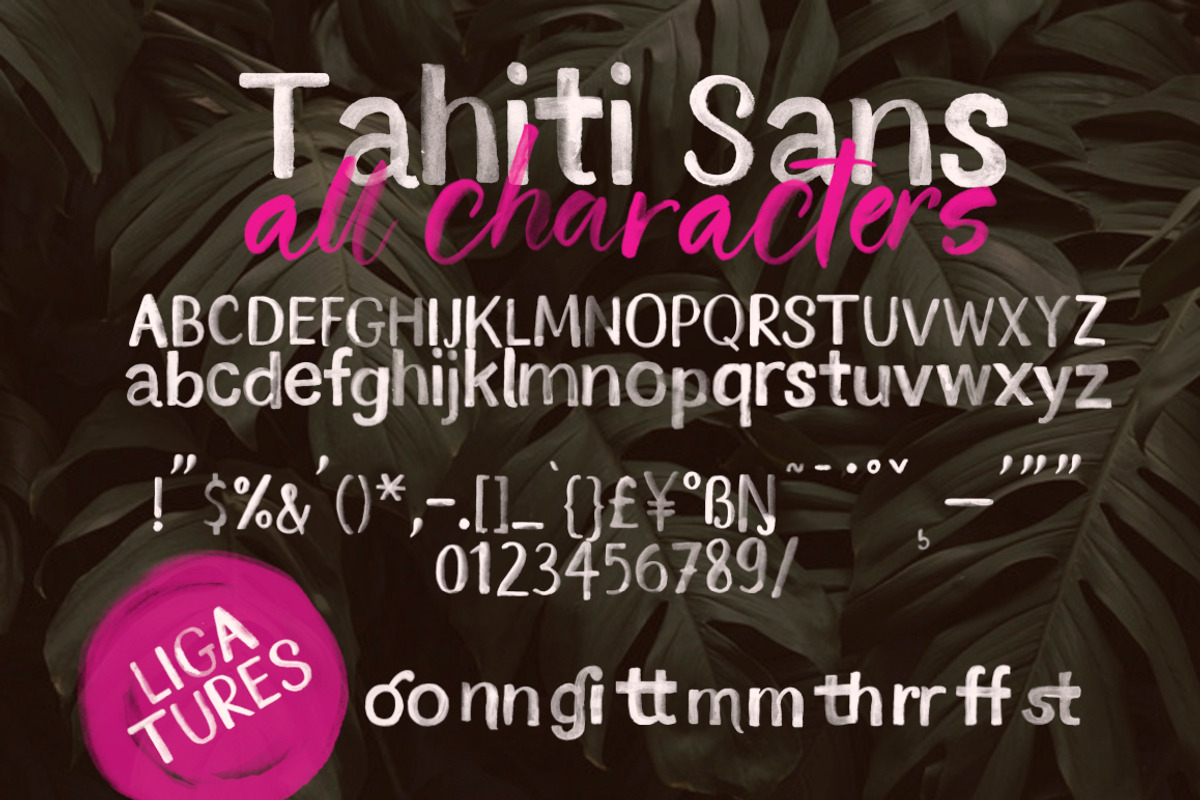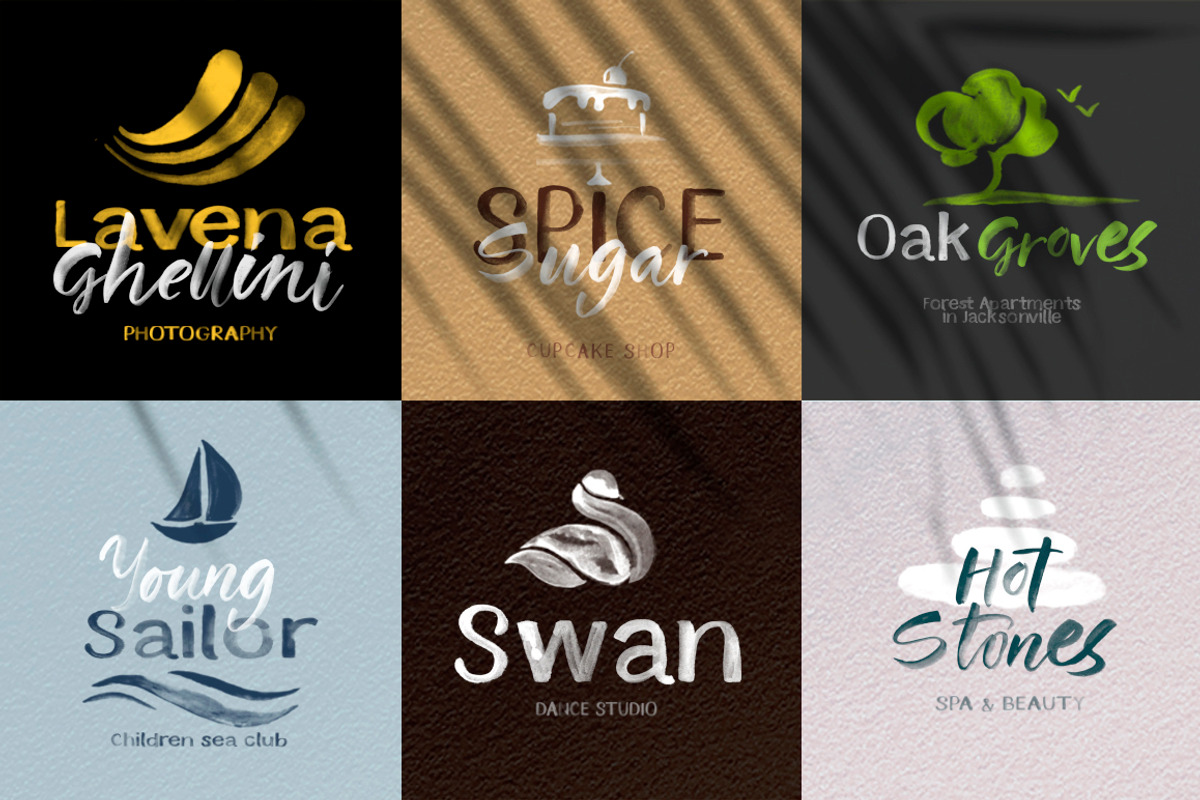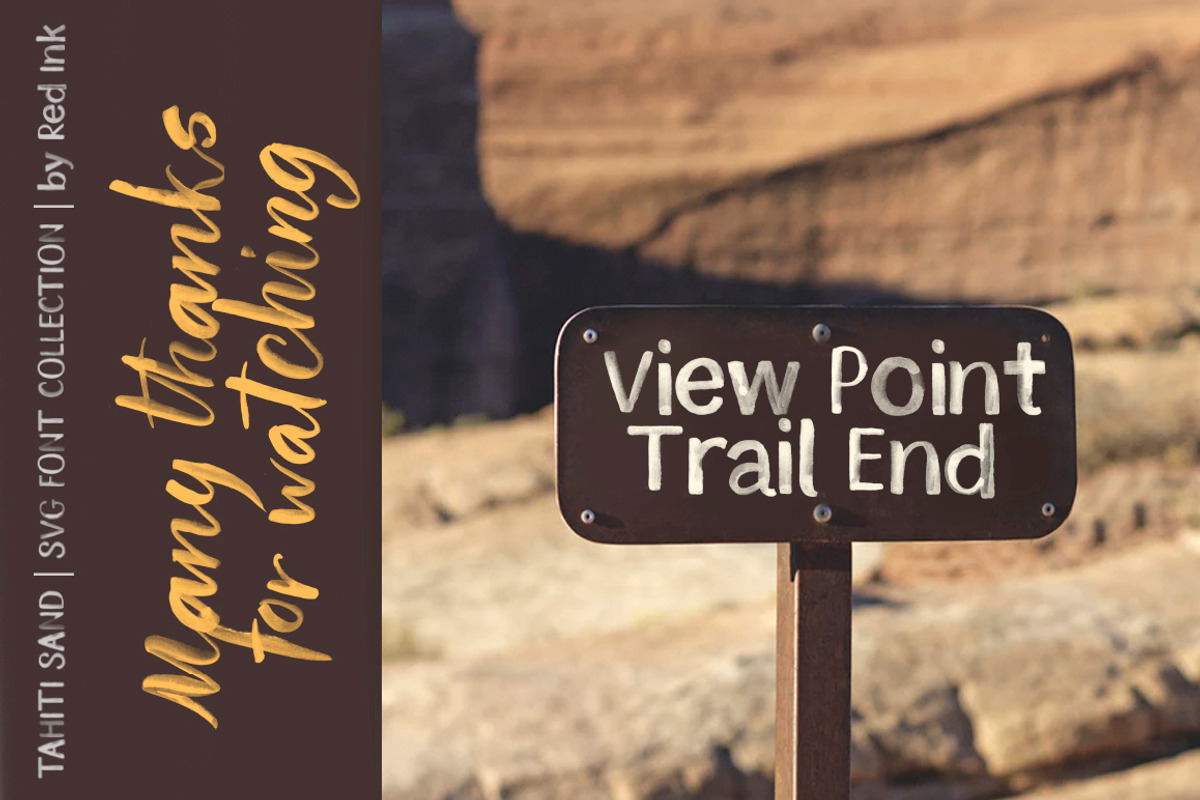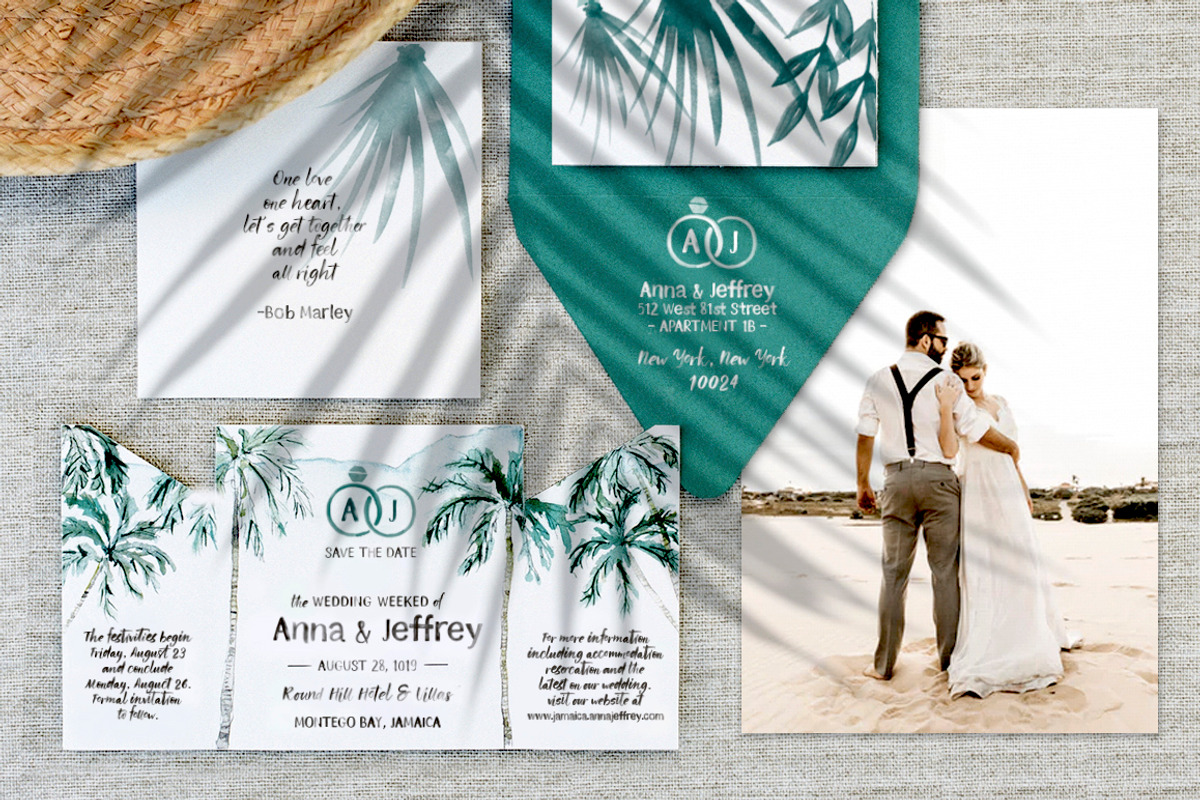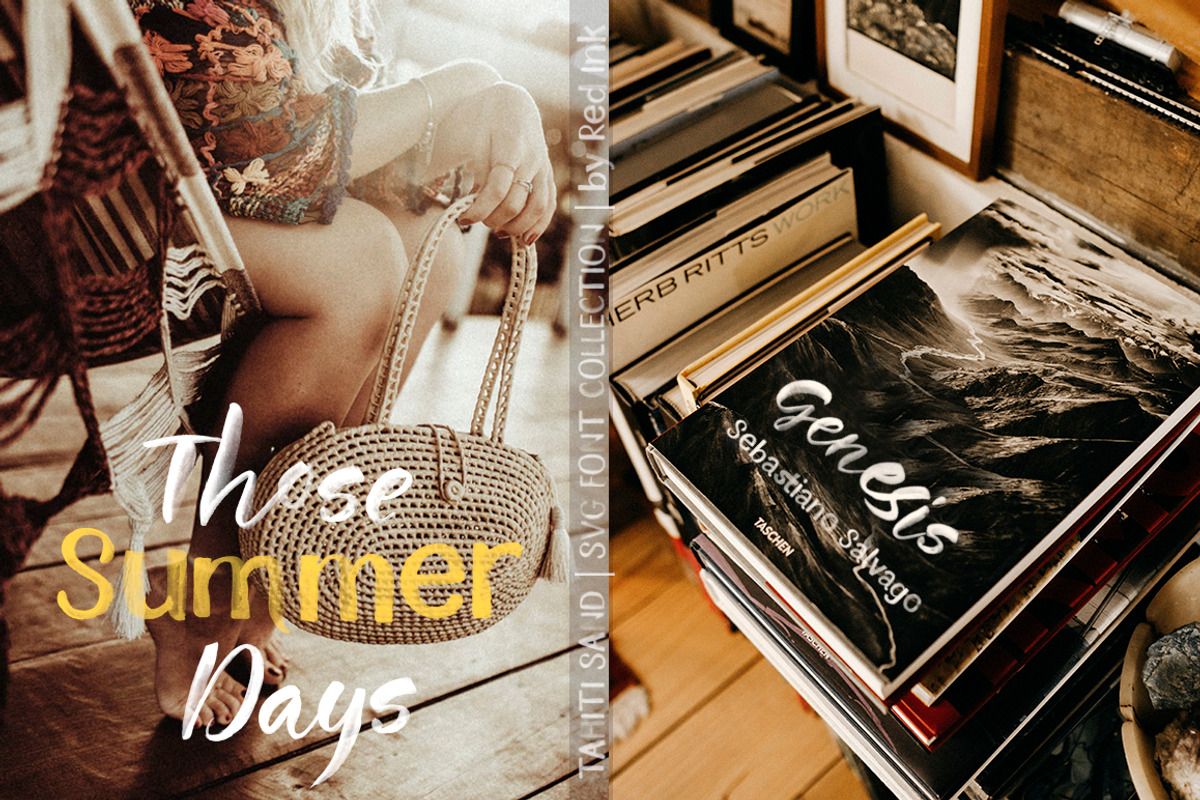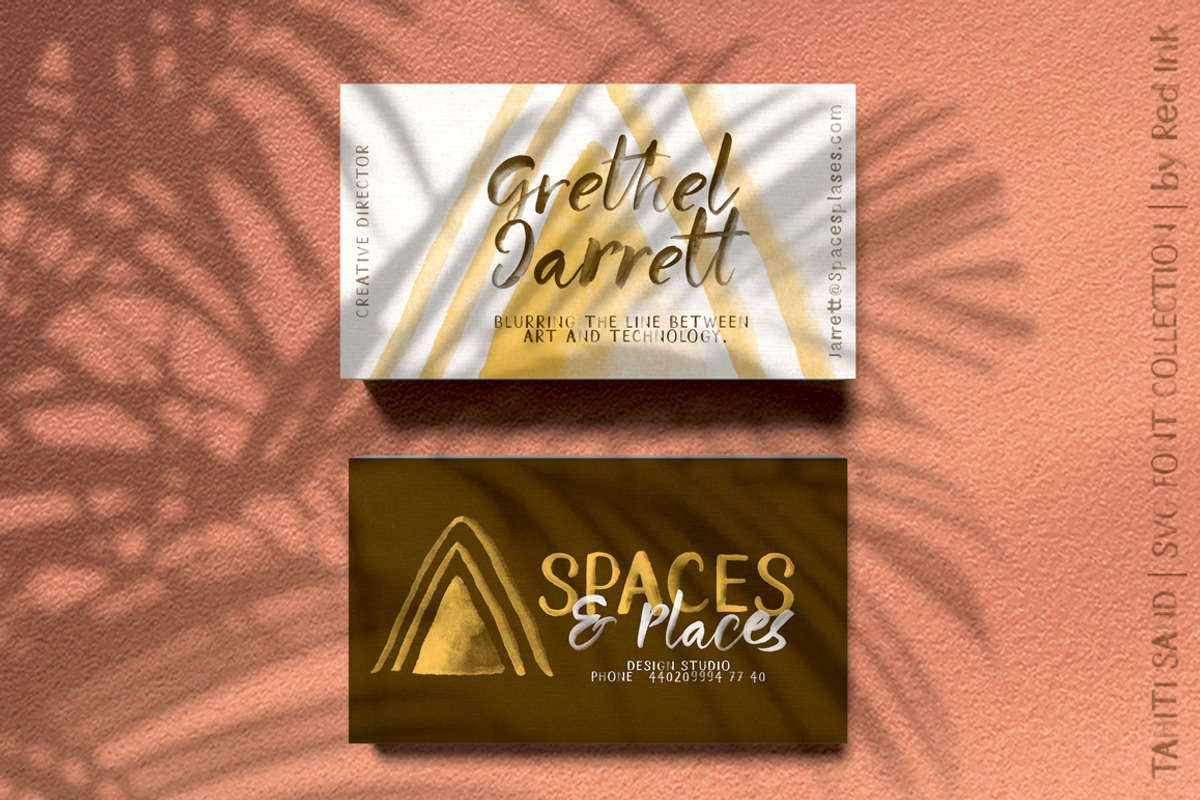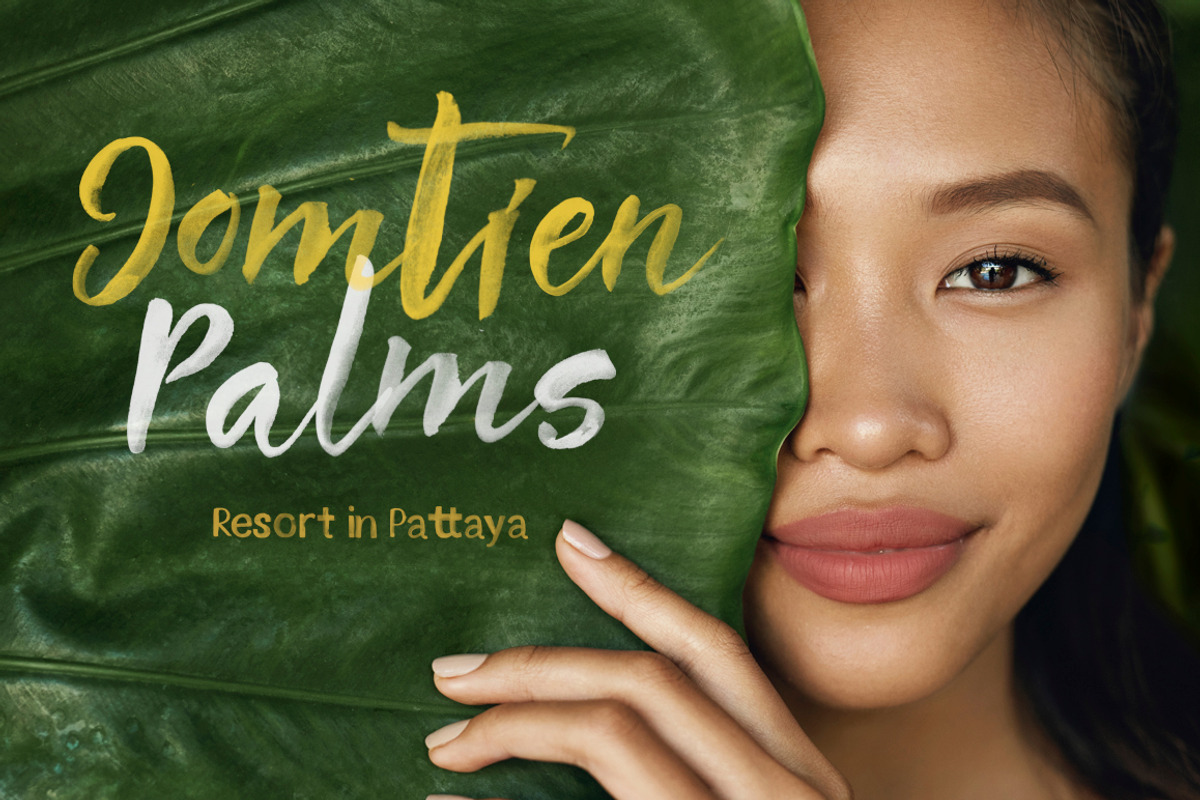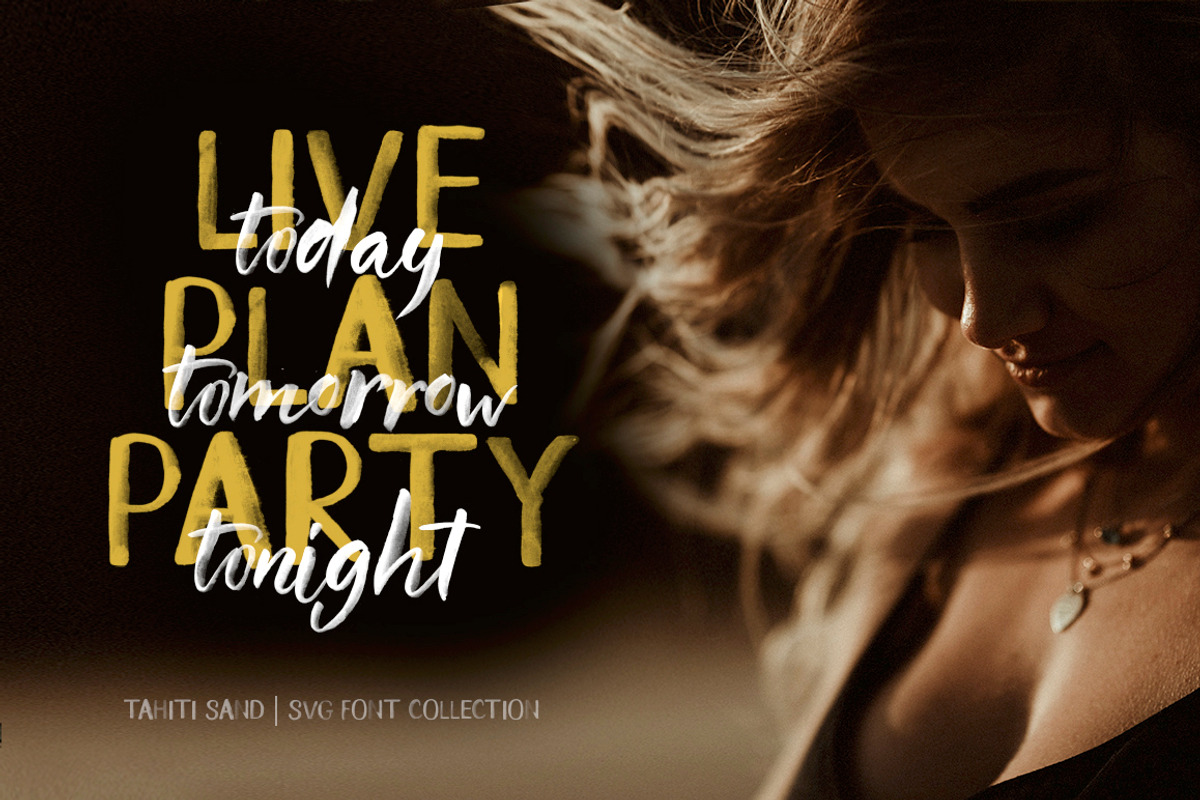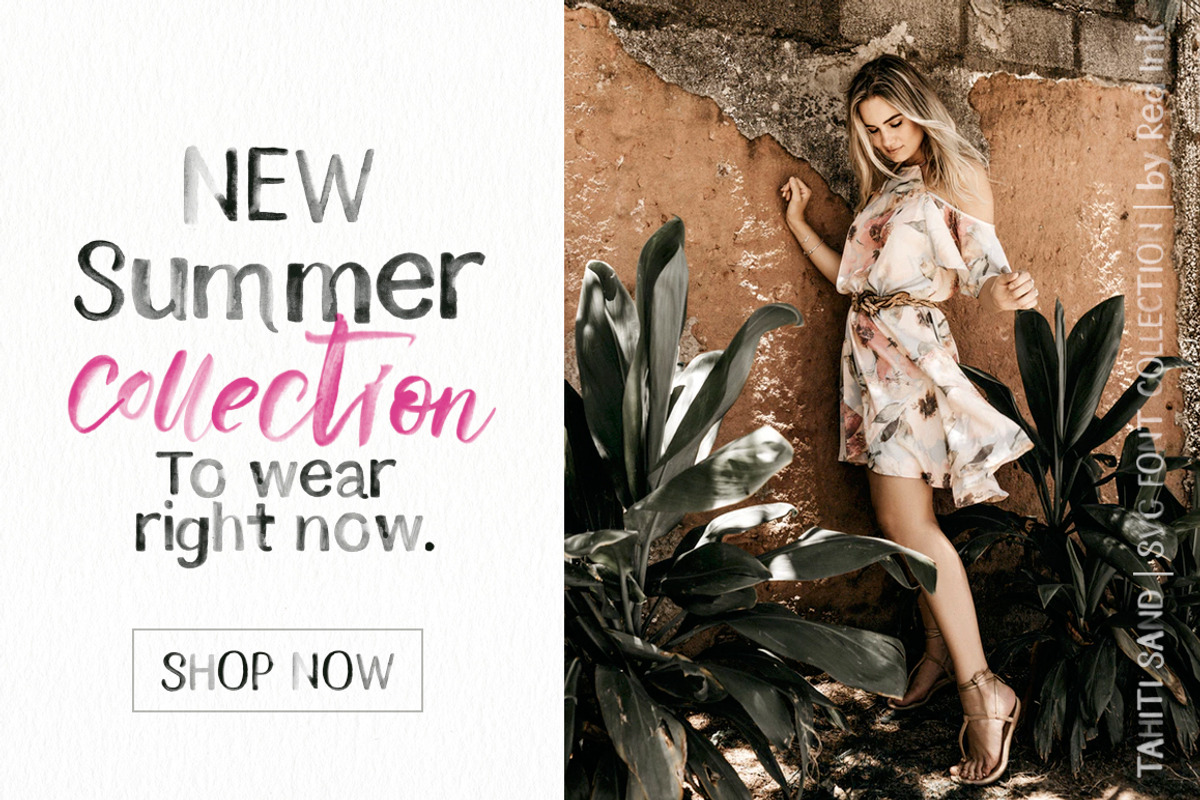
Tahiti Sand. Fonts & Graphics.
This font collection consists of two fonts – hand drawn sans serif and script. And has two drawing styles for both of them - watercolour SVG and REGULAR brush fonts.
SVG Fonts, comes with incredible watercolour letters, instead of the traditional vector format. These fonts are fully preserved the watercolour texture and transparency of the letters. I also added ligatures for all fonts to give more hand drawn feel to your messages.
I also added a large selection watercolor graphics for your designs and branding ideas.
Both SVG Script and SVG Sans Serif Regular font are also presented as Regulal brush fonts. Both fonts are perfectly combined typographic harmony, but they also have a great look when used separatelly.